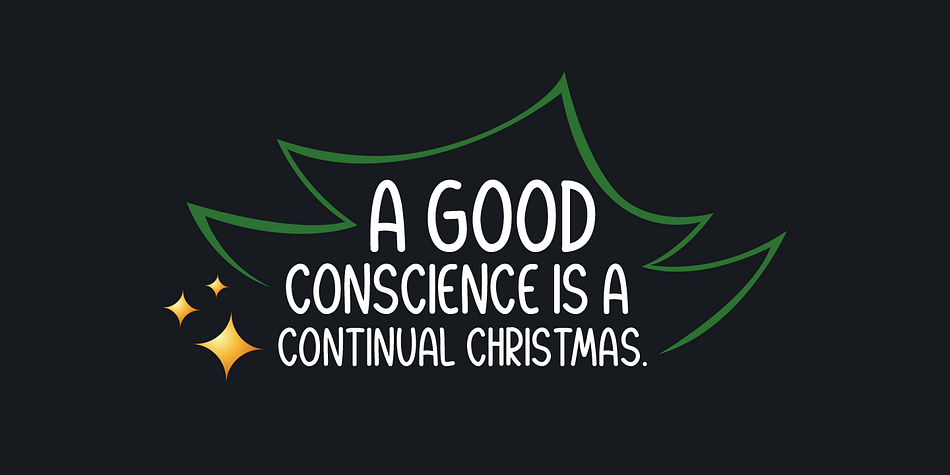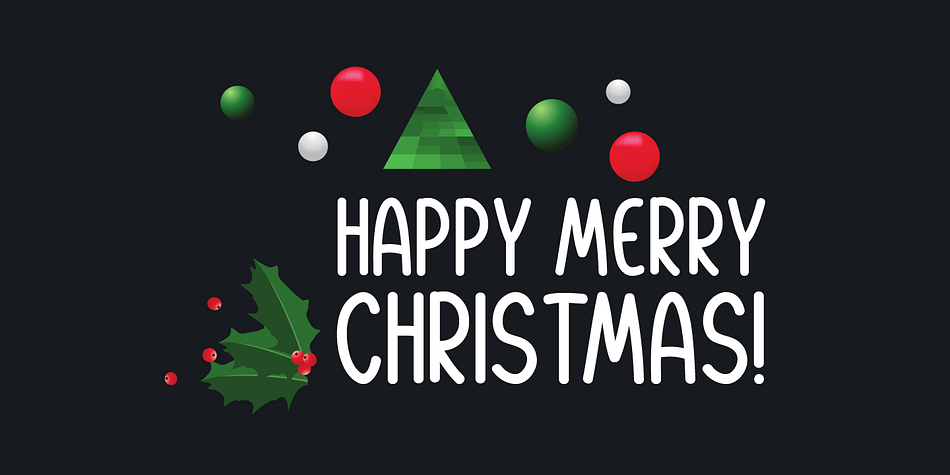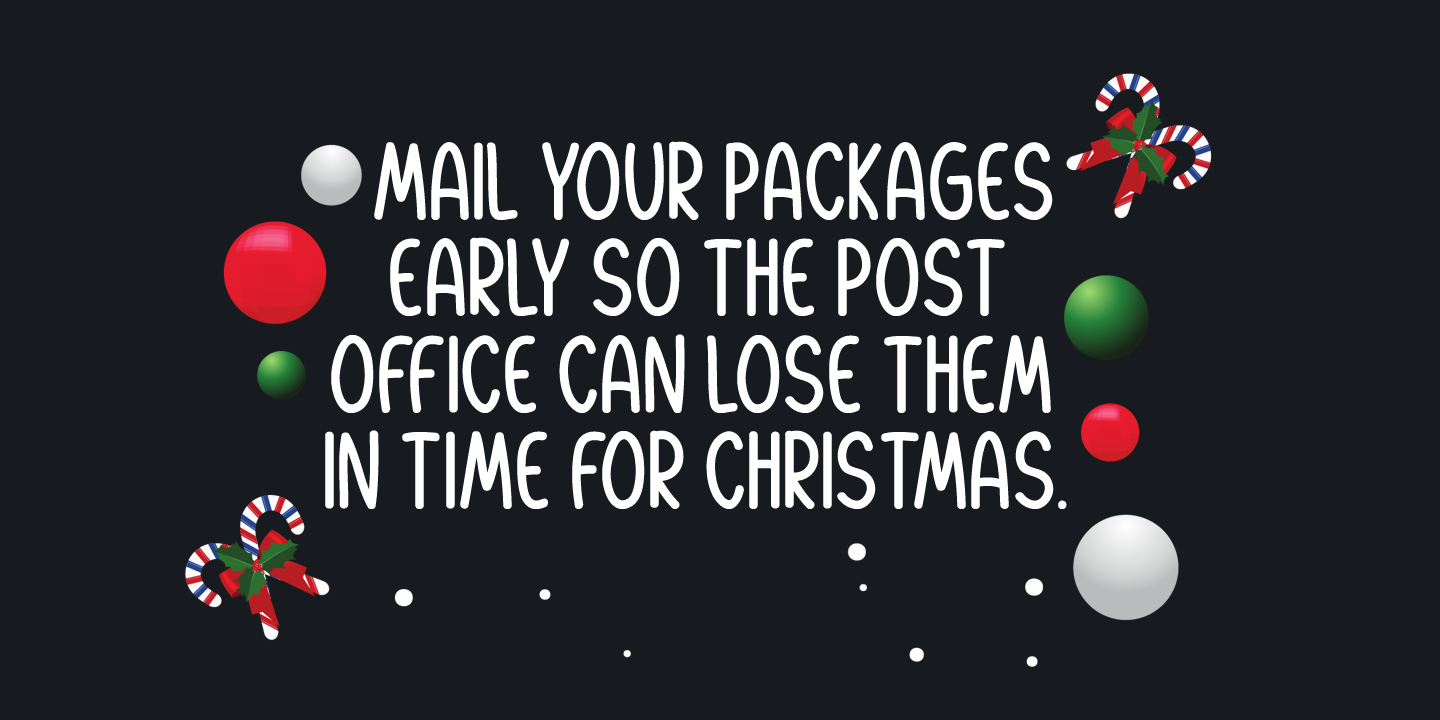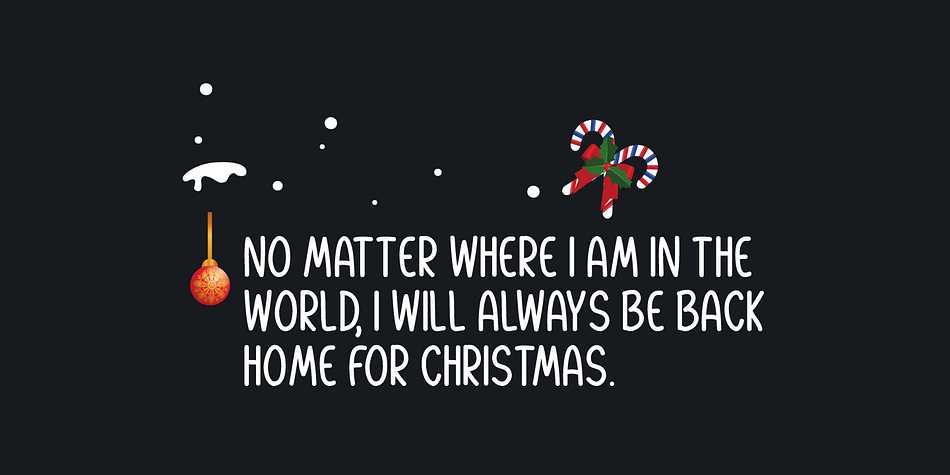
MERRY WITH DREAM
Designed by Md. Shohail Bhuiyan, Merry With Dream is a hand display and hand drawn font published by Seemly Fonts.
Merry with Dream is a cute and simple lettered handwritten font that can be used for all chalkboard quotes or teaching material! Its authentic look will add a personal and realistic feel to your designs.